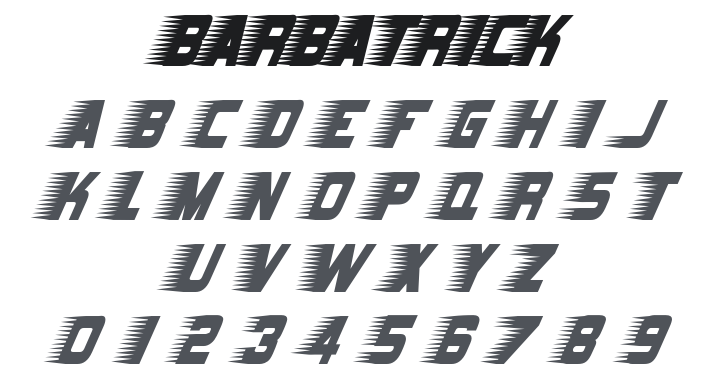
Barbatrick Font
About Barbatrick
Barbatrick is a bold, slanted all-caps display font styled after mid-20th century speed lettering. Its sharply italicized, condensed letterforms feature horizontal speed lines running through them, evoking wind resistance and fast motion. Perfect for sports branding, racing posters, action game titles, and any headline that needs to feel fast, aggressive, and full of energy.